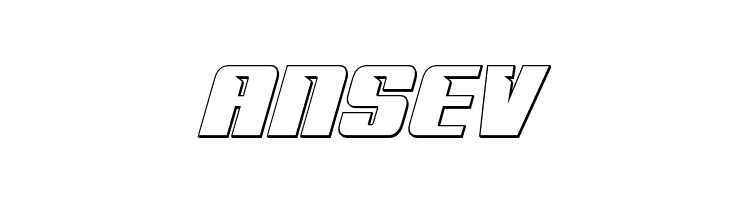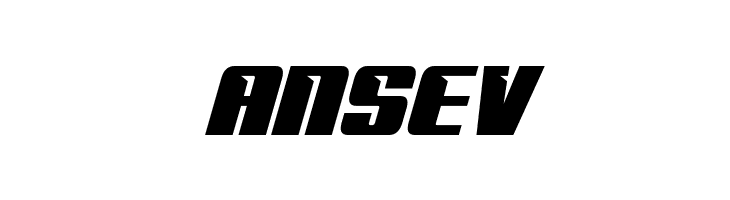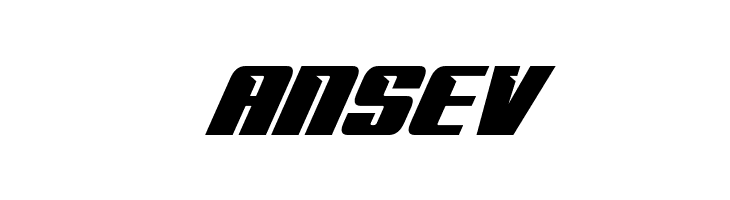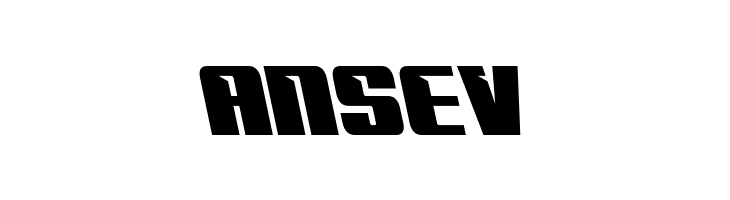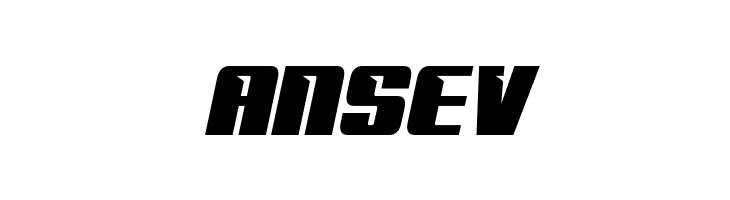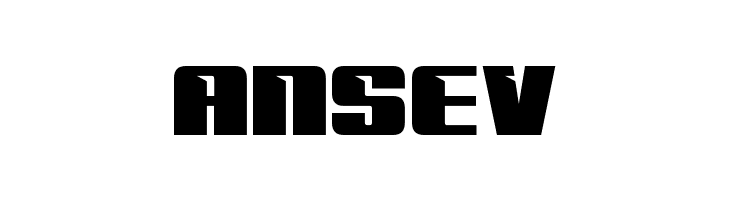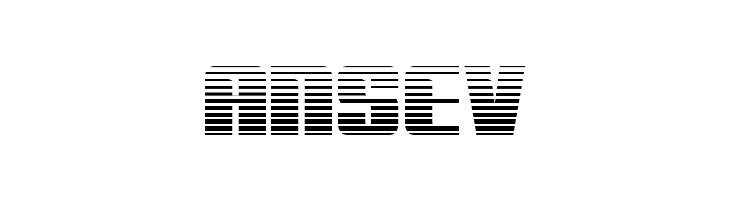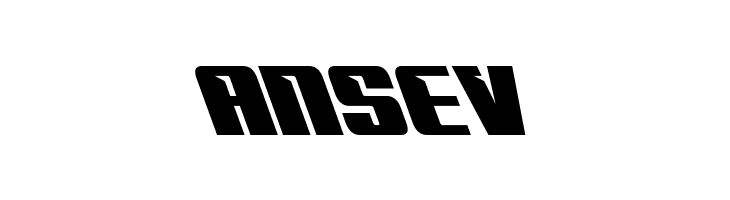
• '89 Speed Affair Expanded
A bold, expanded font with a modern, futuristic style.
• '89 Speed Affair Expanded Ital
A bold, italicized font with an expanded width and high contrast, perfect for modern and impactful designs.
• '89 Speed Affair Gradient
A bold, dynamic font with a horizontal line pattern, evoking speed and modernity.
• '89 Speed Affair Gradient Ital
A dynamic, gradient-effect font with a bold, italicized style conveying speed and motion.
• '89 Speed Affair Gradient2
A bold, striped font with a dynamic, high-speed aesthetic.
• '89 Speed Affair Gradient2Ital
A bold, italicized font with a striped, gradient design conveying speed and modernity.
• '89 Speed Affair Halftone
A bold, geometric font with a halftone effect, evoking speed and motion.
• '89 Speed Affair Halftone Ital
A bold, dynamic font with a halftone effect and slanted characters, exuding speed and energy.
• '89 Speed Affair Italic
A bold, italicized font with a dynamic and modern style, perfect for high-impact designs.
• '89 Speed Affair Leftalic
A bold, left-italicized font with a dynamic and futuristic style.
• '89 Speed Affair Outline
A bold, geometric outline font with a modern, futuristic style.
• '89 Speed Affair Outline Ital
A bold, outlined, italic font with a modern, dynamic style.
• '89 Speed Affair Semi-Italic
A bold, italicized font with sharp, angular edges, exuding speed and energy.
• '89 Speed Affair Semi-Leftalic
A bold, angular font with a dynamic, italicized style.
• '89 Speed Affair Super-Italic
A bold, italicized font with a dynamic, speedy style.
• '89 Speed Affair Super-Left
A bold, slanted font with a dynamic, futuristic style.
• '89 Speed Affair Twotone
A bold, two-tone font with a dynamic, striped design for a sense of speed.
• '89 Speed Affair Twotone Ital
A bold, italicized font with a two-tone effect and dynamic, speedy design.
• '89 Speed Affair Ultra Italic
A bold, italicized font with a dynamic and modern style.